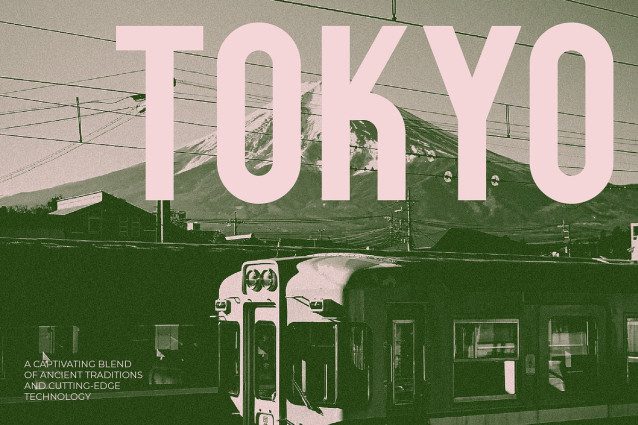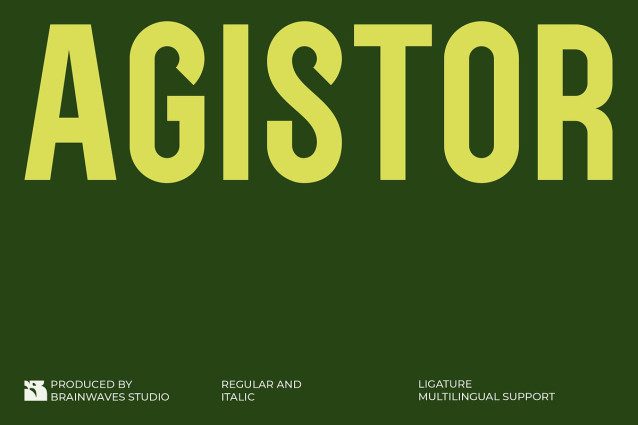
Agistor Font is a powerful, modern display font designed by Brainwaves Studio. With its bold, condensed shape and industrial-retro undertones, Agistor brings strong visual impact to headlines, posters, branding, packaging, and editorial layouts.
Perfect for creators who want their message to stand tall and loud, Agistor includes Regular and Italic styles, multilingual support, and custom ligatures that make your typography stand out. Whether you’re designing a quote wall, a product label, or a bold landing page headline, Agistor delivers presence with attitude.